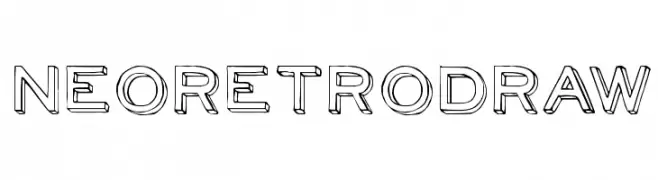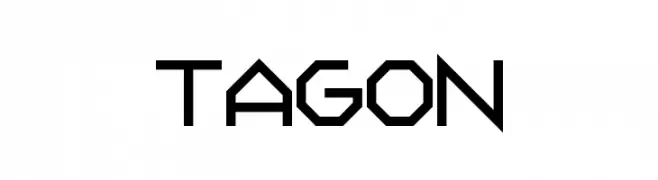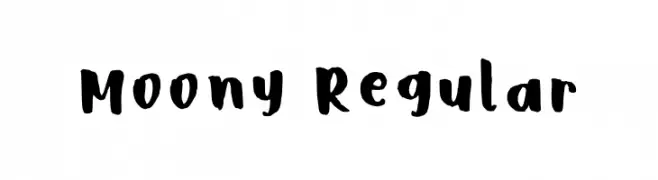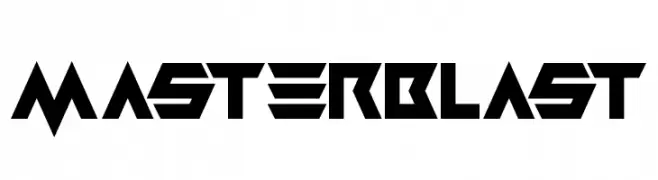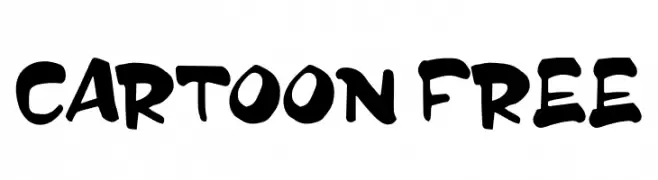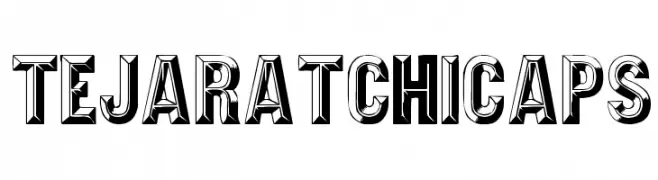
A bold, 3D outline font with a retro-futuristic style.
A playful, hand-drawn outline font with a casual and unique style.
A playful, hand-painted style font with bold, irregular strokes.
A playful, bold, and hand-drawn style font with rounded, irregular characters.
A bold, geometric font with a futuristic and angular design.
A playful, bold, hand-drawn font with a cartoonish, energetic style.
A bold, 3D serif font with a vintage yet modern look, perfect for impactful headlines.